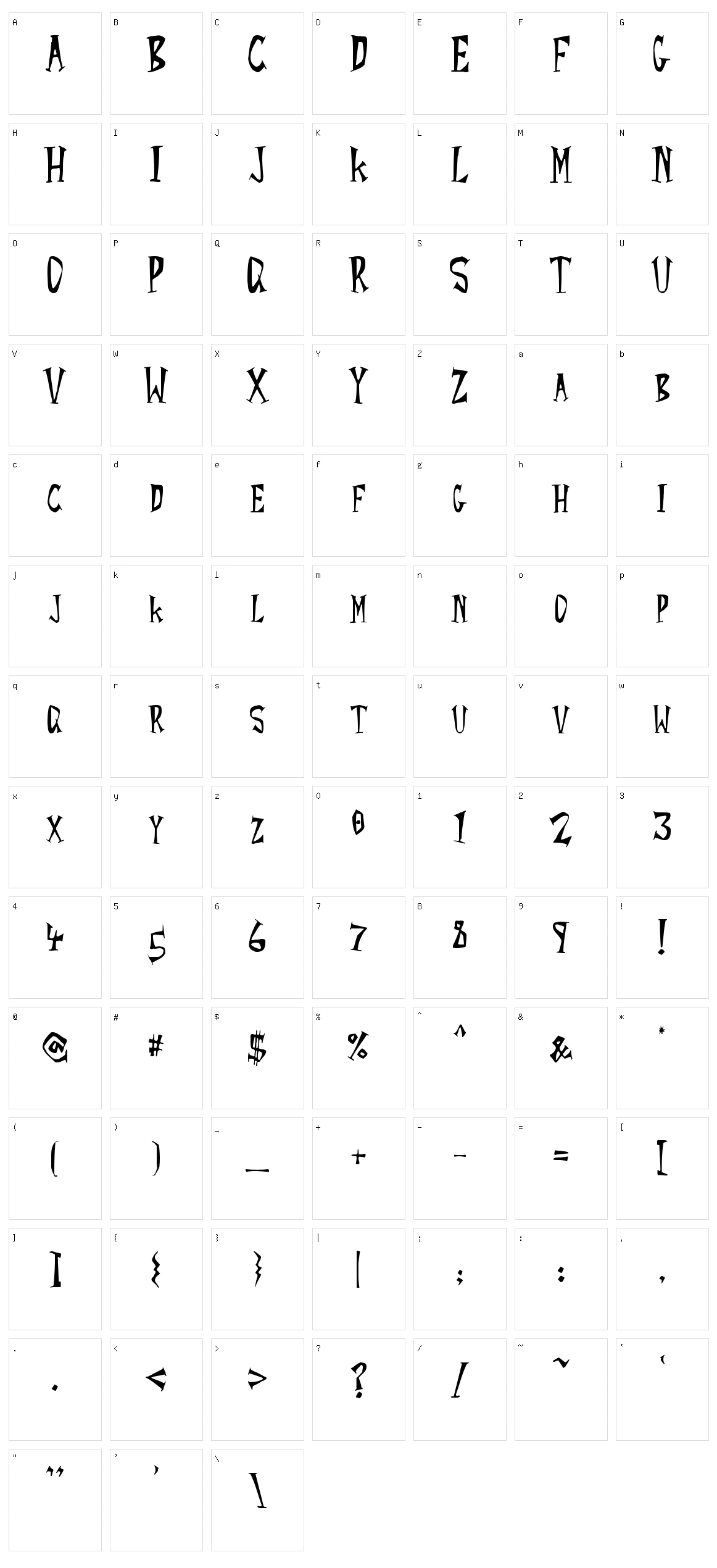
ROCKET YO-YO
A TrueType Font by S. John Ross
Cumberland Games & Diversions
Over Labor Day weekend, Sandra and I spent an evening drinking caffeinated stuff and doodling at the Little City Coffeehouse, and this was what I doodled that night. I didn't set out with any particular plan, but it ended up reminiscent of those fifties-advertisement-style typefaces I've seen around, with my own "handmade" twist. It's also sort of Halloweeny, in its way. It's a full keyboard set, ready to play.